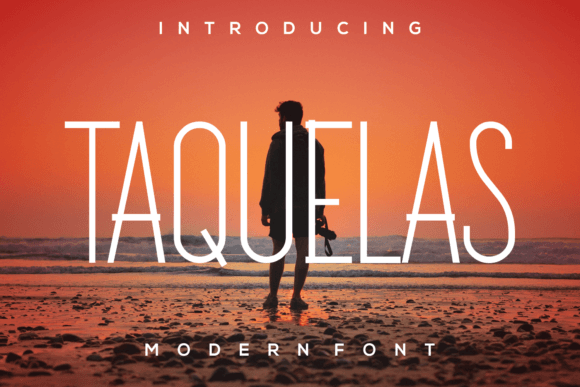
Journey into the realm of Taquelas Font, a display font that exudes charm, elegance, and creativity. Crafted with meticulous attention to detail, Taquelas promises to transform your digital designs into captivating expressions of your thoughts and emotions.
With its unique and distinctive characters, Taquelas Font breathes life into any project it adorns. Its bold and graceful strokes add a touch of sophistication, inviting readers to delve deeper into your words. Whether you're crafting wedding invitations, designing posters, or creating eye-catching social media graphics, Taquelas Font will leave an indelible mark on your audience.
Embrace the allure of Taquelas Font and unleash your creative potential. Let its sweeping curves and dynamic lines transport you to a world where imagination reigns supreme. Elevate your designs to new heights and capture the hearts of your readers with this remarkable display font.
Immerse yourself in the world of Taquelas Font, where elegance and creativity intertwine. Experience the joy of transforming ordinary words into captivating expressions that resonate with your audience. Allow Taquelas Font to be your muse, guiding you toward design masterpieces that leave a lasting impression.